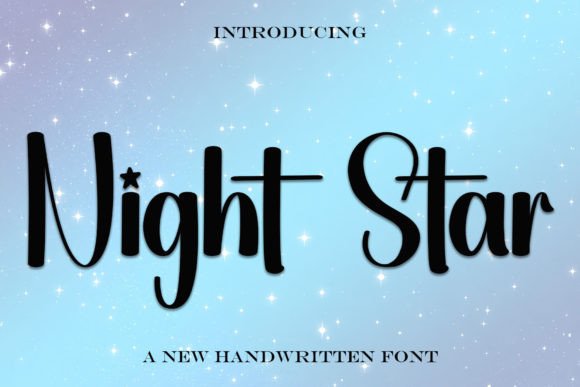
Introducing Night Star Font, the perfect choice for those seeking a captivating and stylish addition to their font collection. This exquisite handwritten font, belonging to the display font family, is meticulously crafted to bring a contemporary atmosphere and impeccable form to your projects. Created by the talented putrasyahreza00, Night Star Font is the ultimate font for tattoos and script designs.
With its timeless classic calligraphy inspiration, Night Star Font effortlessly adds a touch of elegance and sophistication to any creative endeavor. Whether you're designing a logo, crafting invitations, or working on a personal project, this font is guaranteed to elevate your work to new levels of excellence.
What sets Night Star Font apart is its balance and versatility. Each letter has been carefully designed to enhance the beauty of your projects, making it a must-have for artists, designers, and enthusiasts alike. The font's remarkable glyph collection and ligatures are easily accessible, thanks to its PUA encoding. This means you'll have no trouble unleashing the full potential of Night Star Font and creating stunning, eye-catching designs that leave a lasting impression.
Imagine the impact this font can have on your next project. Its contemporary atmosphere will draw attention and evoke a sense of modernity, while its impeccable form will captivate viewers and make your work stand out from the crowd. Night Star Font is more than just a font – it's a tool that empowers you to express your creativity in ways you never thought possible.
Unlock a world of endless possibilities with Night Star Font. Embrace its stylish and contemporary charm, and watch as it effortlessly transforms your designs into works of art. Whether you're a professional designer or a passionate hobbyist, this font is a must-have addition to your toolkit.